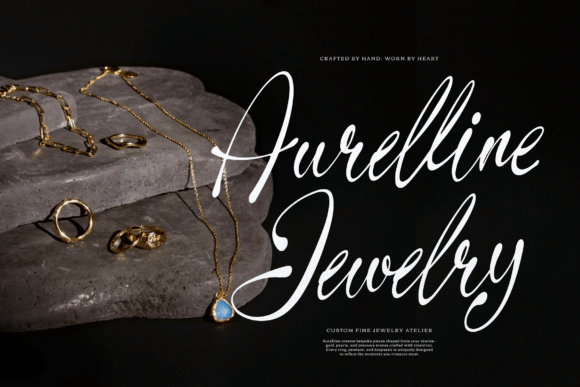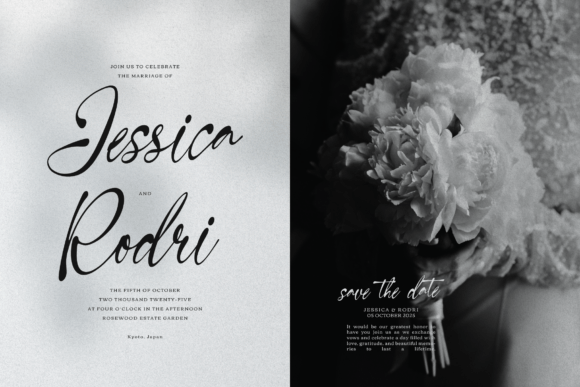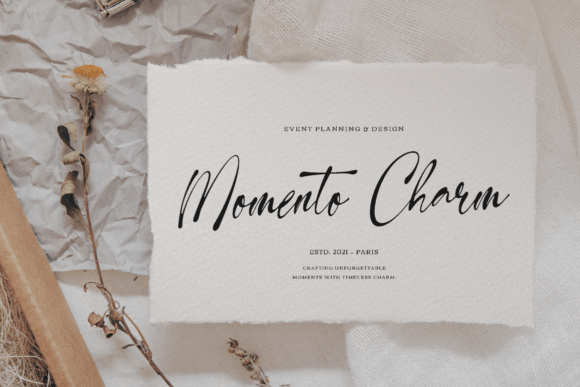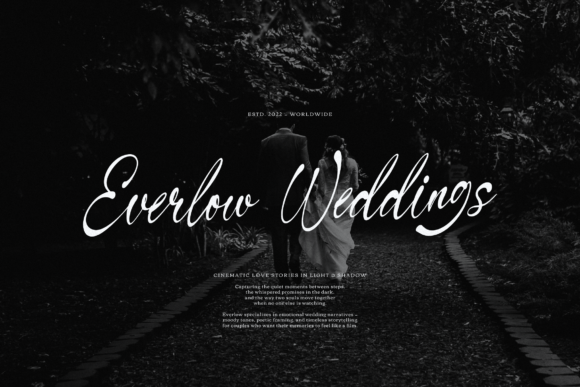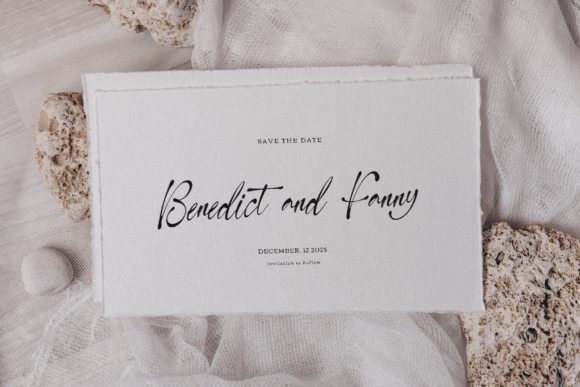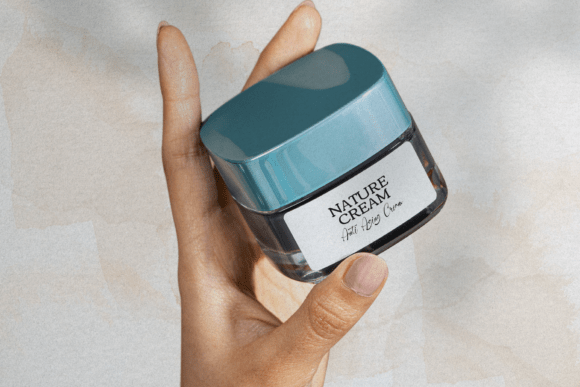
Introduction to Kaylime Lisandrei Font
Have you ever stumbled upon a beautiful handwritten note that makes you feel like you’re the only person in the world? That’s exactly the kind of magic the Kaylime Lisandrei Font brings to your designs. As a designer, you know how important it is to have the right tools to convey your message and evoke emotions. This exquisite script font is a game-changer for any creative project that requires a touch of high-end elegance.
With its long, sweeping connections and beautiful, flowing ascenders and descenders, the Kaylime Lisandrei Font is a masterpiece of elegance that exudes romance, intimacy, and high-fashion style. Whether you’re working on a luxury wedding branding project, designing high-end product labels, or creating stunning fashion photography overlays, this font is sure to add an unparalleled touch of class to your designs.
As a valuable design resource, the Kaylime Lisandrei Font is perfect for designers who want to take their work to the next level. Its delicate balance of weight and impressive ligature support ensures a genuine, custom-lettered appearance that’s sure to impress. Plus, with its transparent background and PUA-encoded support, you can easily use it in your designs without any hassle. And the best part? It’s available for free download, making it an absolute must-have for any designer looking to elevate their creative projects.
Key Features of Kaylime Lisandrei Font
- Features a unique and modern design, perfect for adding a touch of elegance to any creative project.
Honest Review: Kaylime Lisandrei Font
I recently stumbled upon the Kaylime Lisandrei Font while searching for a free design resource. I was immediately drawn to its unique aesthetic and decided to put it to the test in a creative project.
- ✨ The font’s high quality and crisp lines make it perfect for digital designs.
- ✨ The transparent background allows for seamless integration with other design elements.
- ✨ The font’s creative and modern feel makes it ideal for a wide range of projects.
- ⚠️ The font may not be suitable for print projects due to its digital origins.
- ⚠️ Some users may find the font’s unique style too bold or overpowering.
Overall, I’m impressed with the Kaylime Lisandrei Font’s versatility and design potential. While it may not be perfect for every project, it’s definitely a valuable addition to any designer’s toolkit. The free download is a definite bonus, making it accessible to designers of all levels.